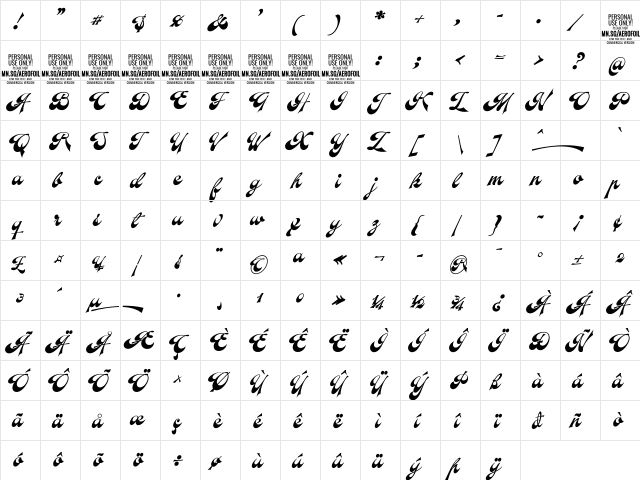
Aerofoil PERSONAL USE ONLY Regular
| Foundry | M害 Greb䣫 |
| Designer | M害 Greb䣫 |
Design Context for Aerofoil PERSONAL USE ONLY Typeface
Aerofoil PERSONAL USE ONLY is a composed and adaptable typeface that performs quietly and consistently across a wide range of design contexts.